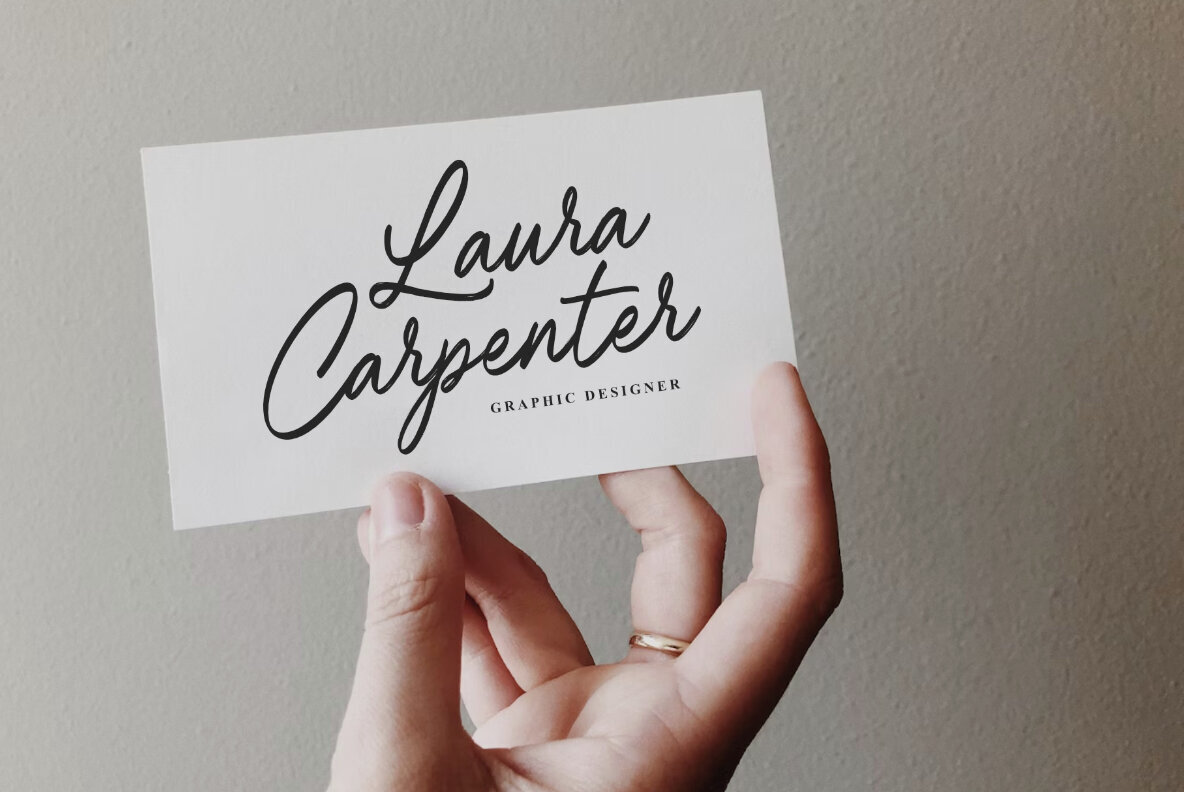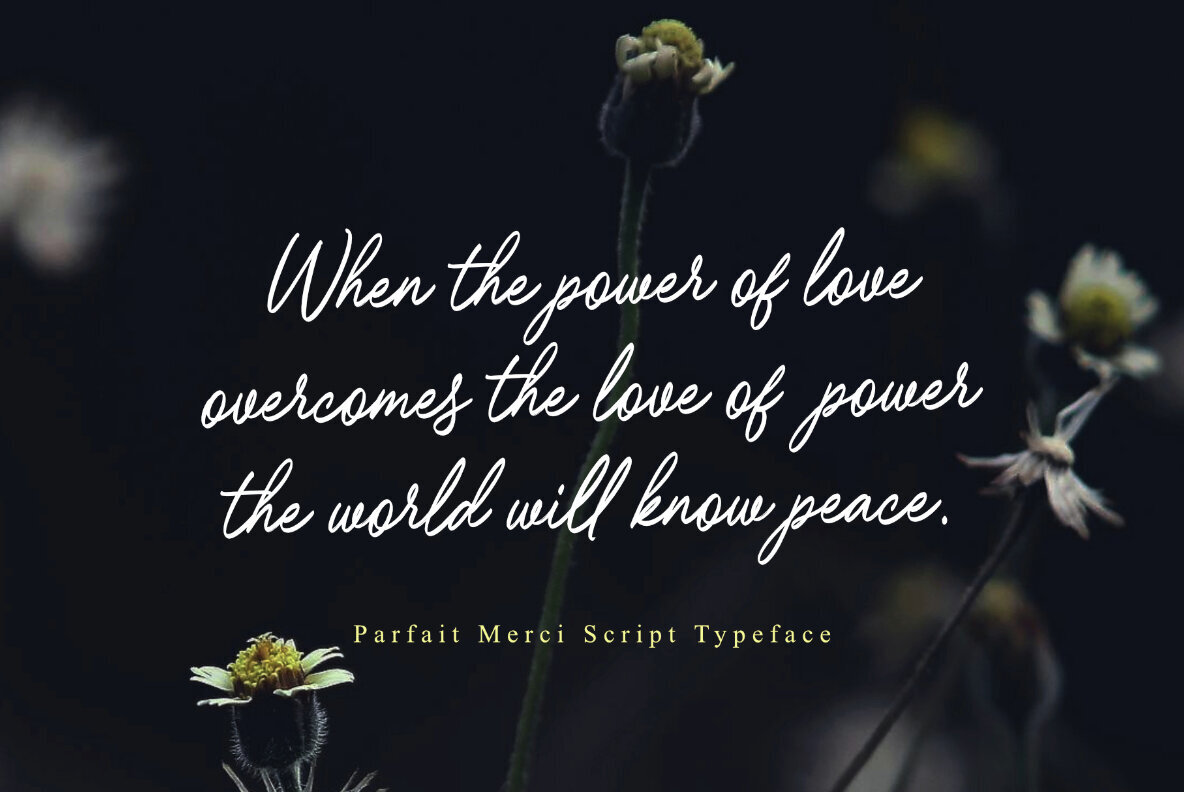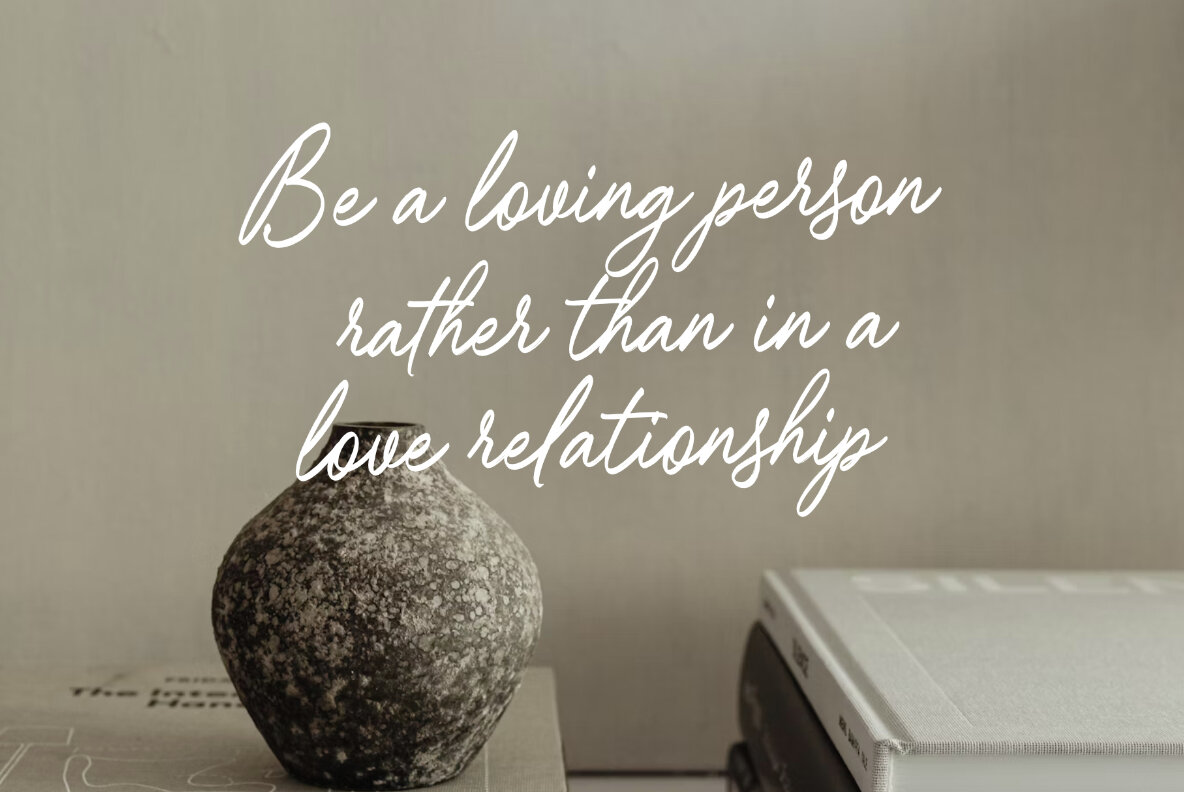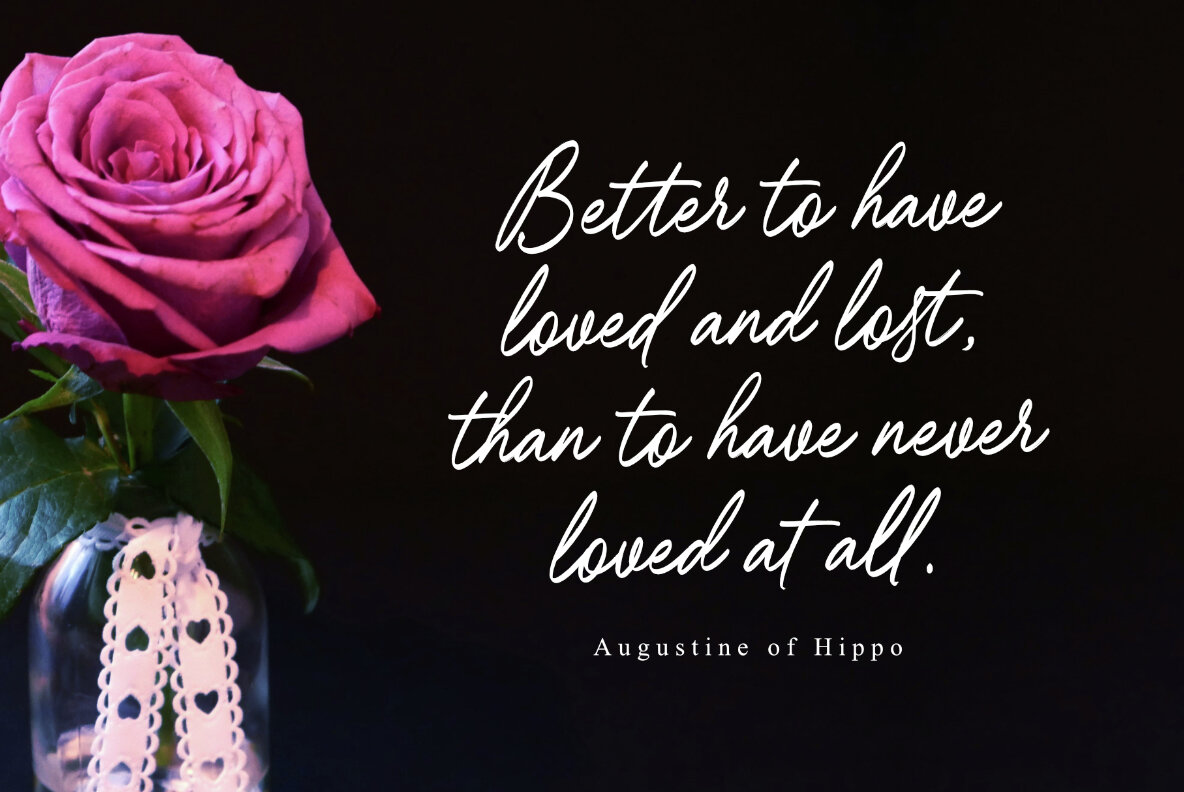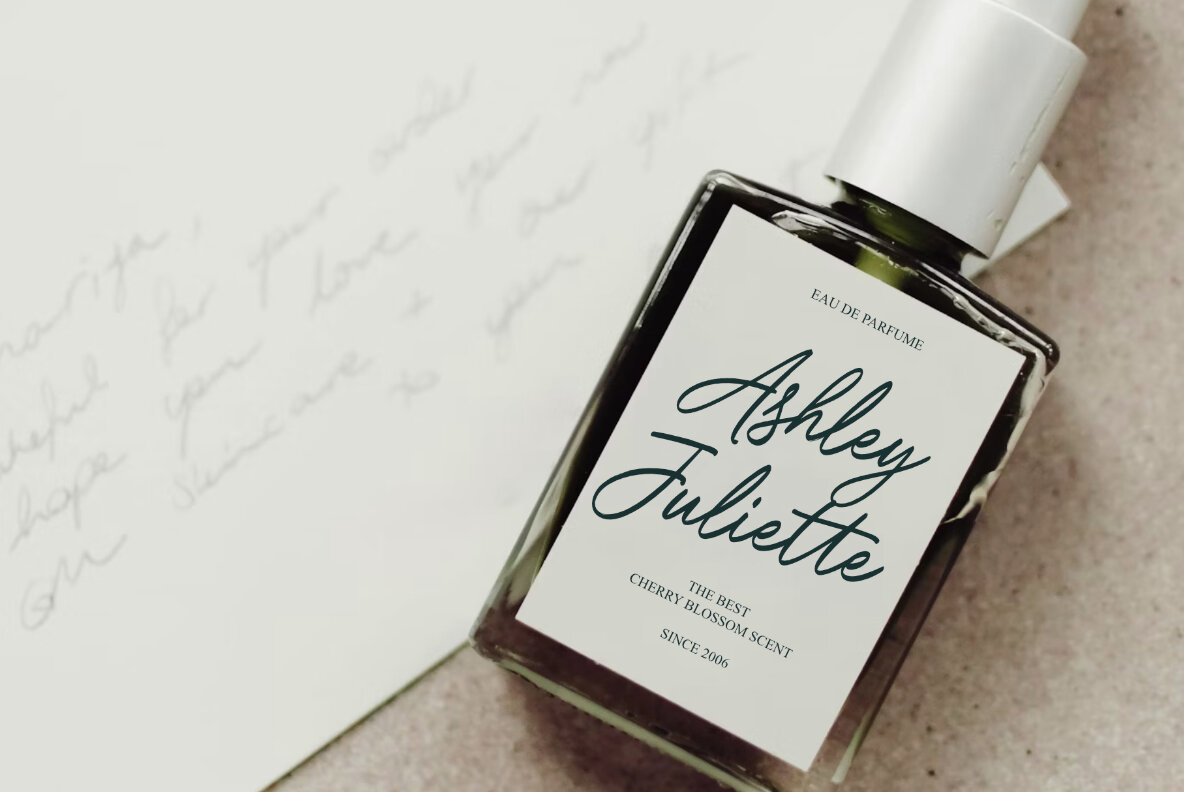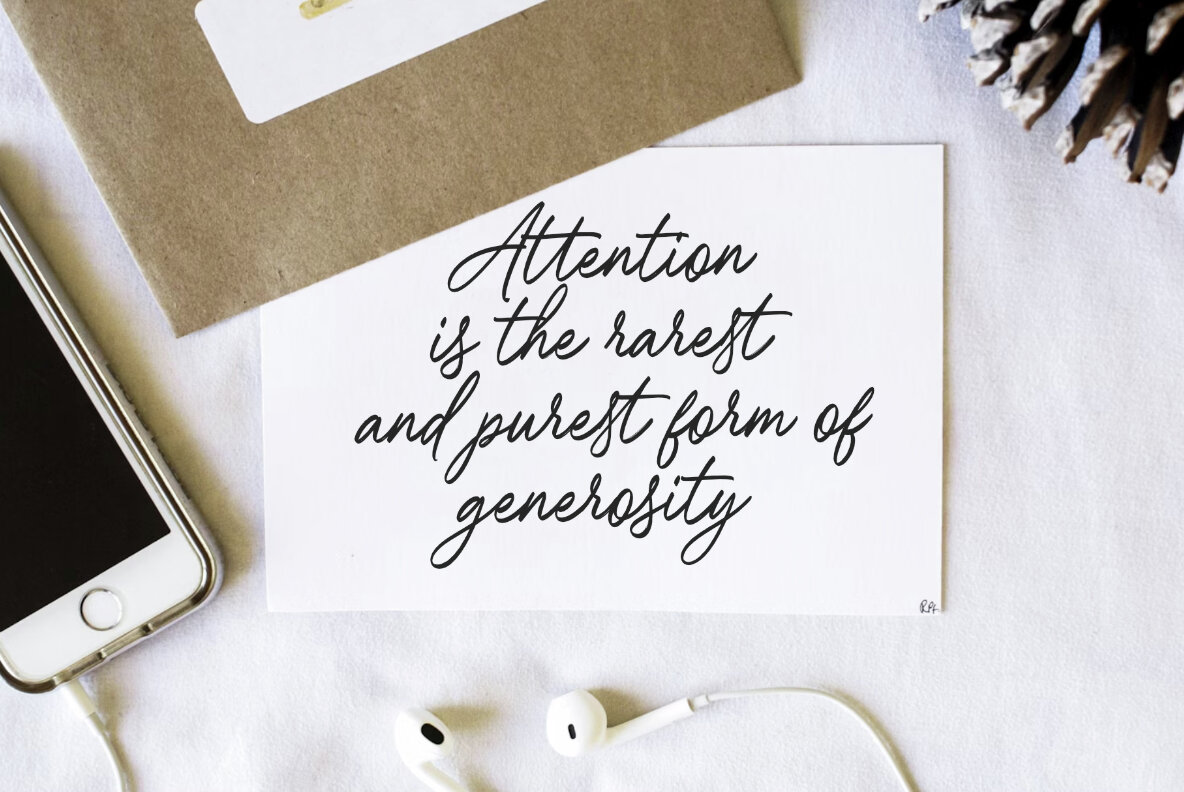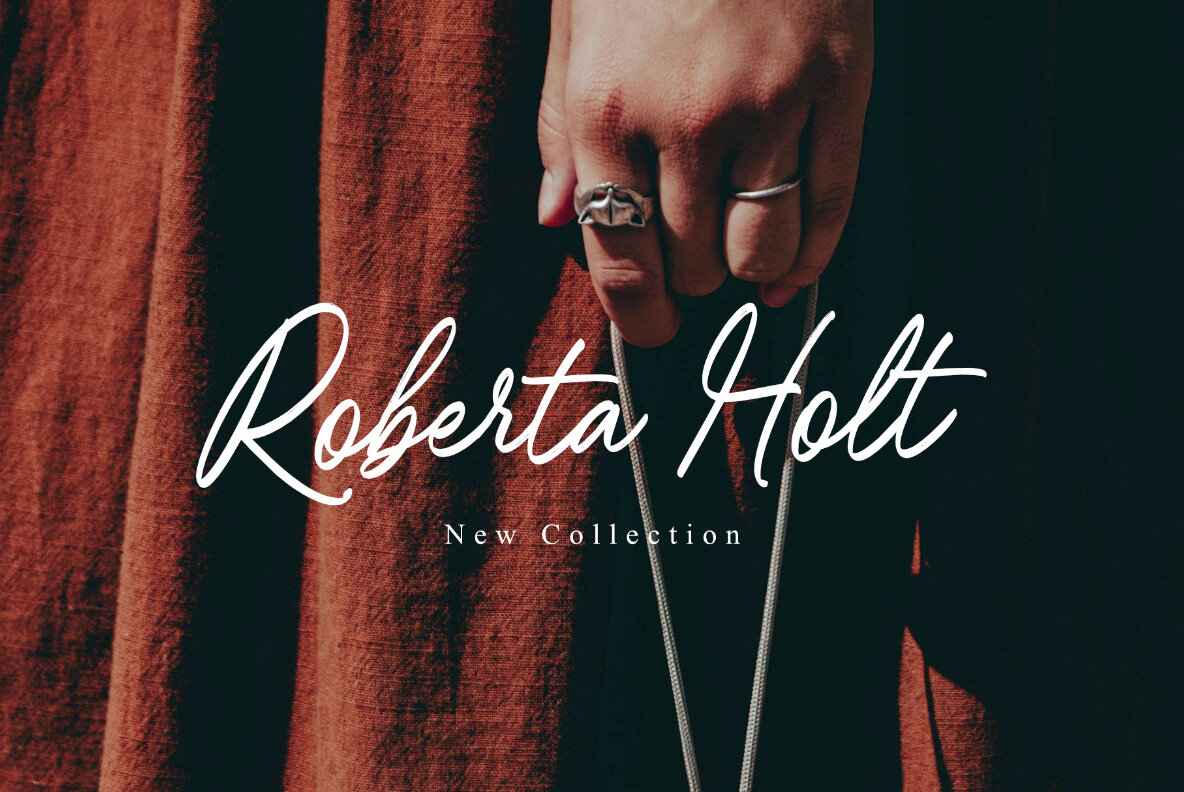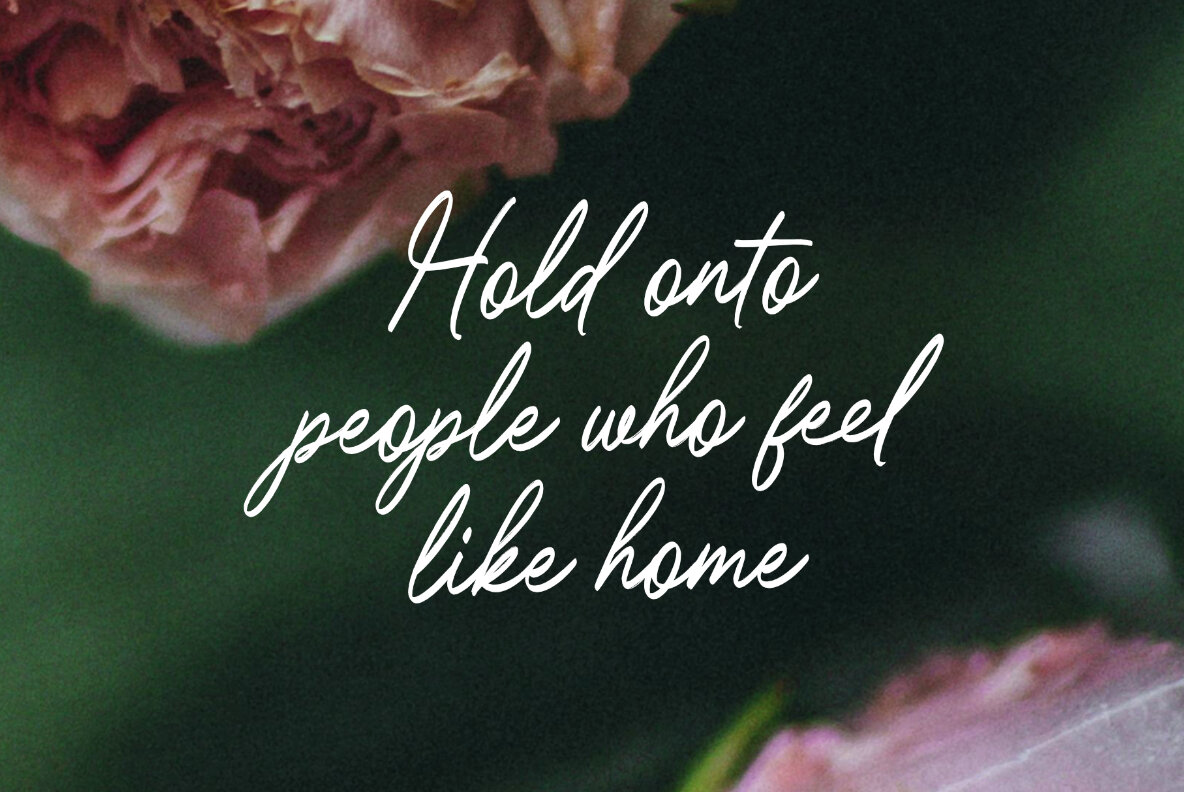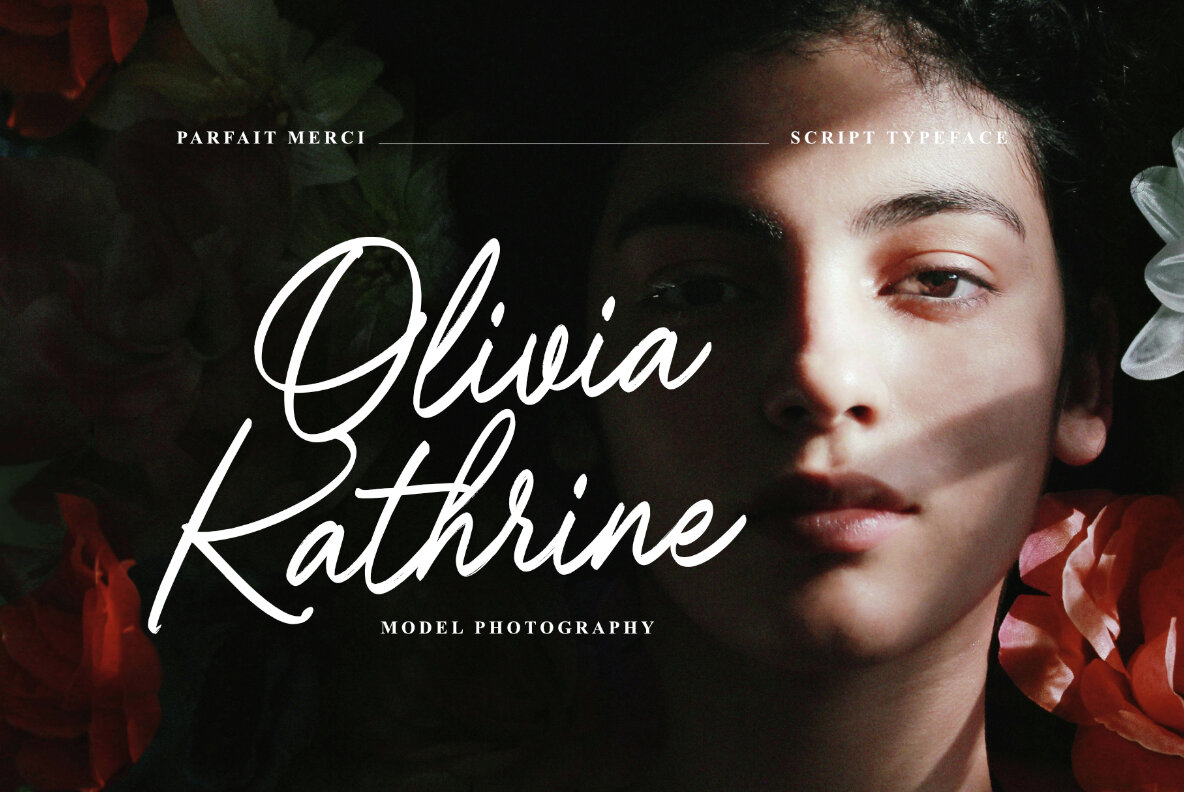
Parfait Merci Font
Parfait Merci Regular
Parfait Merci is a chic and stylish natural handwriting script font that exudes elegance and sophistication. With its fluid, organic strokes and impeccably balanced letterforms, this font captures the essence of effortless style and refined handwriting. Ideal for projects that need a touch of modern luxury, Parfait Merci brings a sense of grace and poise to every design.
Enhance your creative work with its smooth curves and flowing lines, perfect for branding, invitations, or any creative endeavor that demands a refined appearance. This font's sophisticated charm makes it an excellent choice for designers aiming to incorporate a sense of elegance and class into their projects.